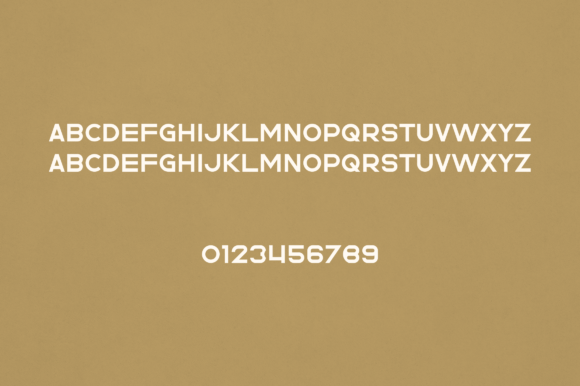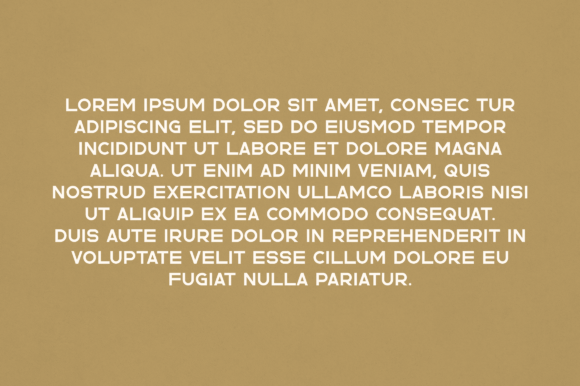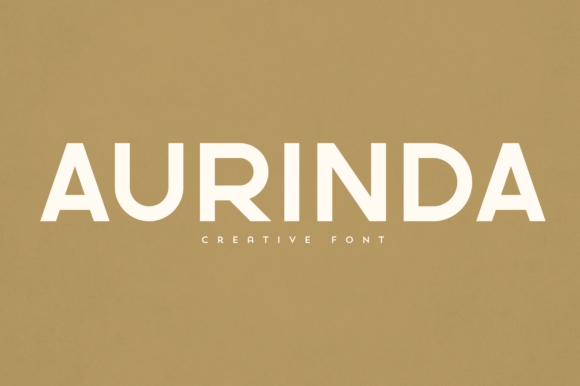
Aurinda Font: Elevate Your Typography with Elegance and Versatility
In the world of typography, a font can make or break the visual identity of a design project. If you’re a designer or crafter looking for a font that exudes elegance and versatility, look no further than Aurinda. This stunning sans serif font is designed to make your typography truly unique, adding a touch of sophistication to any design project.
What Makes Aurinda Special?
Aurinda is more than just a font – it’s a design statement. Its elegant and versatile nature makes it perfect for a wide range of applications, from logos and branding to headlines and plain text. Whether you’re working on a branding project, home-ware design, product packaging, or magazine headers, Aurinda is the perfect choice. You can even use it as a stylish text overlay to add depth and context to any background image.
Key Features of Aurinda Font
- Elegant and Versatile: Aurinda’s sleek and modern design makes it perfect for a wide range of design projects.
- Sans Serif: The font’s clean and minimalist sans serif design ensures that your text is easy to read and understand.
- Unique Typography: With Aurinda, you can create truly unique typography that sets your design apart from the rest.
- Highly Legible: The font’s clear and concise design makes it perfect for use in headlines, body text, and more.
Use Cases for Aurinda Font
Aurinda’s versatility makes it perfect for a wide range of design projects, including:
- Branding Projects: Use Aurinda to create a unique and memorable brand identity that sets you apart from the competition.
- Home-Ware Designs: Add a touch of elegance to your home-ware designs with Aurinda’s sophisticated font style.
- Product Packaging: Make your product packaging stand out with Aurinda’s modern and sleek design.
- Magazine Headers: Use Aurinda to create eye-catching magazine headers that grab attention and draw readers in.
- Text Overlays: Add a stylish text overlay to any background image with Aurinda’s elegant font style.
Why Choose Aurinda Font?
With so many fonts available, why choose Aurinda? Here are just a few reasons:
- Unique Design: Aurinda’s unique design ensures that your typography stands out from the rest.
- High-Quality: The font is designed to high-quality standards, ensuring that it looks great in any design project.
- Versatile: The font’s versatility makes it perfect for a wide range of design projects.
Tips for Using Aurinda Font
Here are a few tips for getting the most out of Aurinda:
- Experiment with Different Sizes: Aurinda looks great in a variety of sizes, so don’t be afraid to experiment and find the perfect size for your design.
- Play with Color: The font’s elegant design makes it perfect for use with a wide range of colors, so don’t be afraid to get creative.
- Use it with Images: Aurinda is perfect for use as a text overlay on images, adding depth and context to your design.
In conclusion, Aurinda is an elegant and versatile sans serif font that’s perfect for designers and crafters looking to elevate their typography. With its unique design, high-quality standards, and ease of use, Aurinda is the perfect choice for a wide range of design projects. Whether you’re working on a branding project, home-ware design, or product packaging, Aurinda is sure to make your typography truly unique.